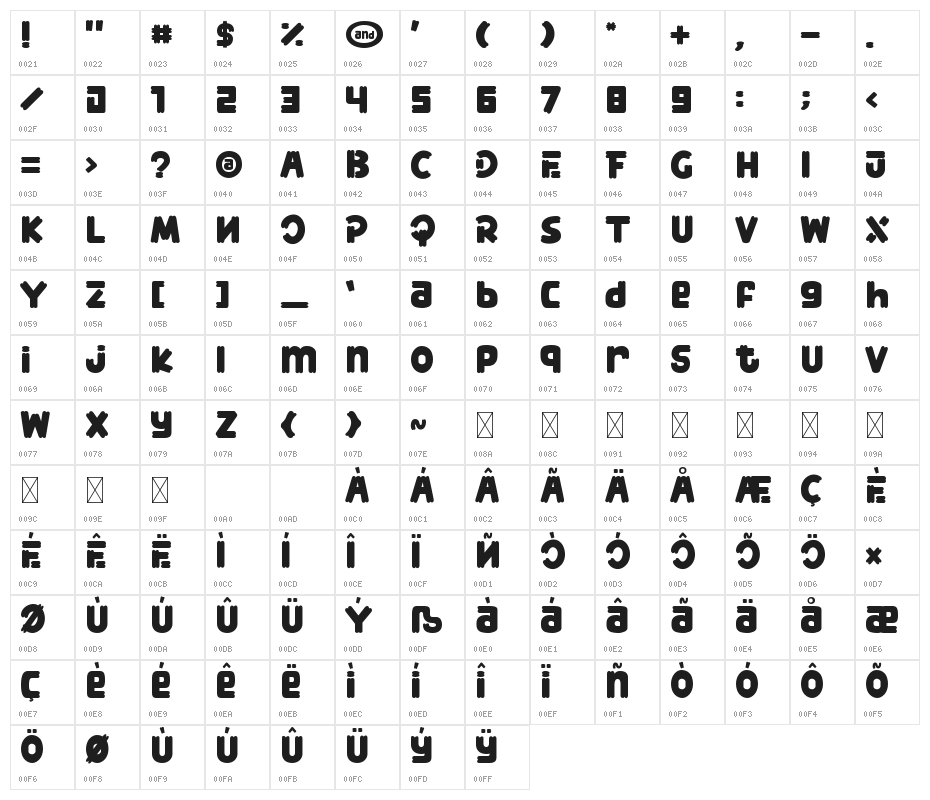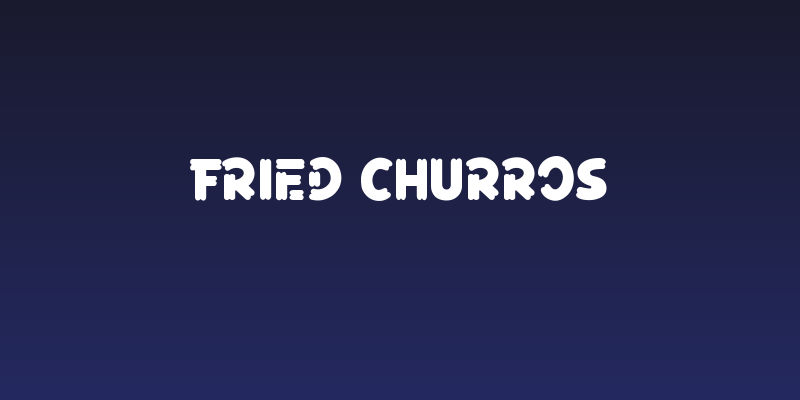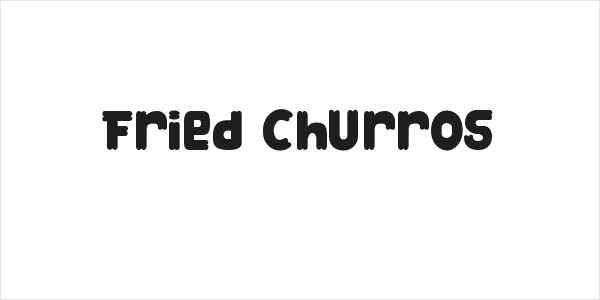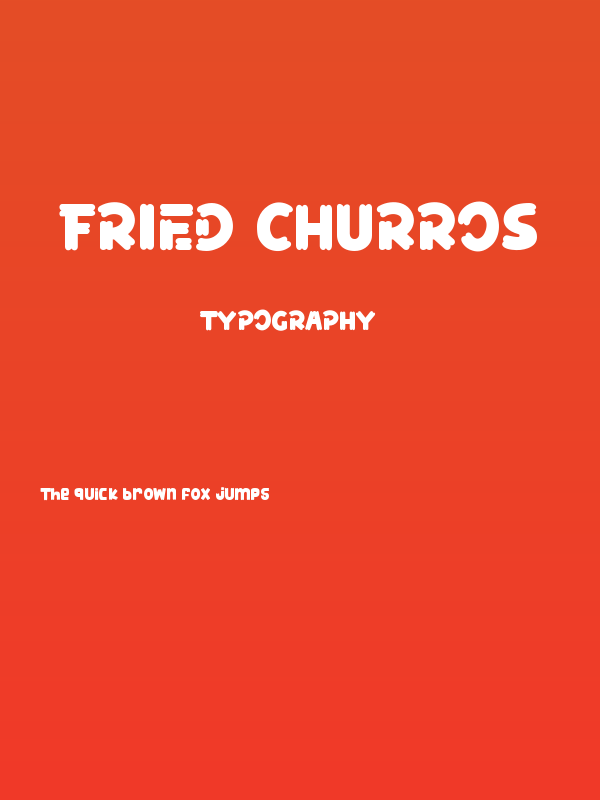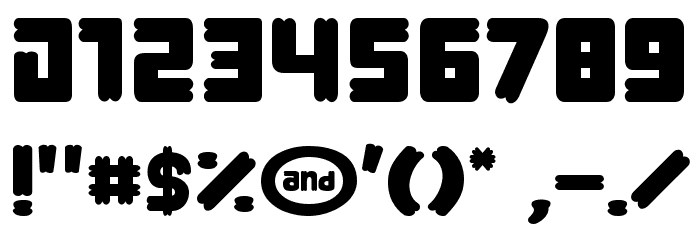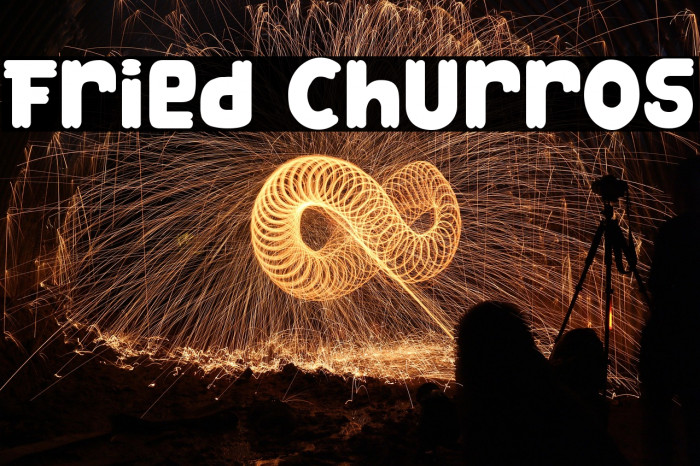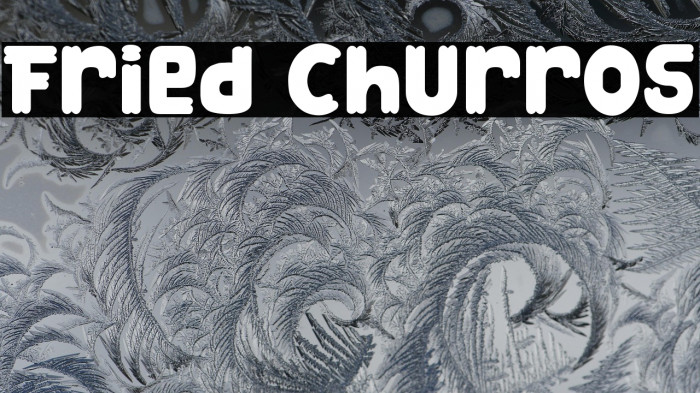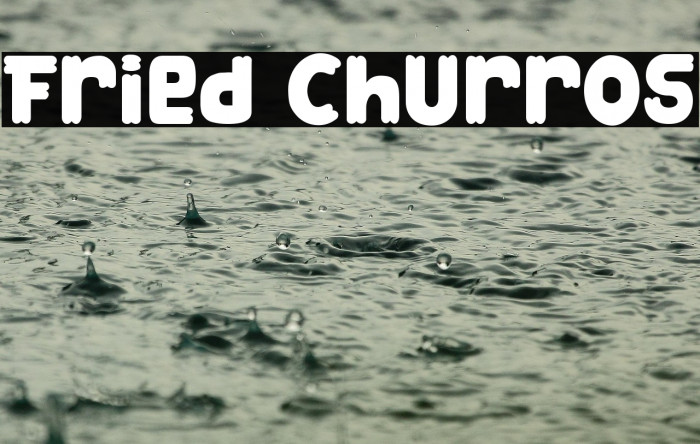
Fried Churros Font
Fried Churros Description
This playful and bold font features thick, rounded characters with a whimsical touch. The letters are designed with a unique, chunky style that gives them a fun and friendly appearance. The font maintains a consistent weight throughout, providing a strong visual impact. Its distinctive look is characterized by rounded edges and a slightly condensed form, making it suitable for eye-catching designs. The numbers and special characters follow the same bold and rounded style, ensuring uniformity across all elements.
| Proposed Projects | Ideal for children's books, playful branding, posters, and any design requiring a fun and bold typeface. |